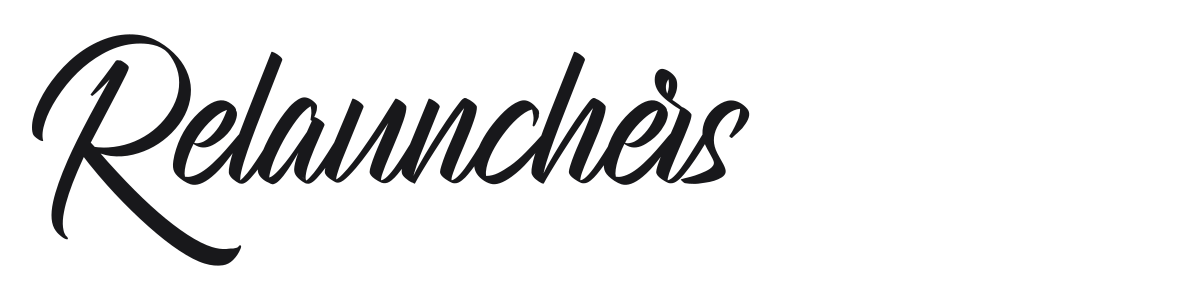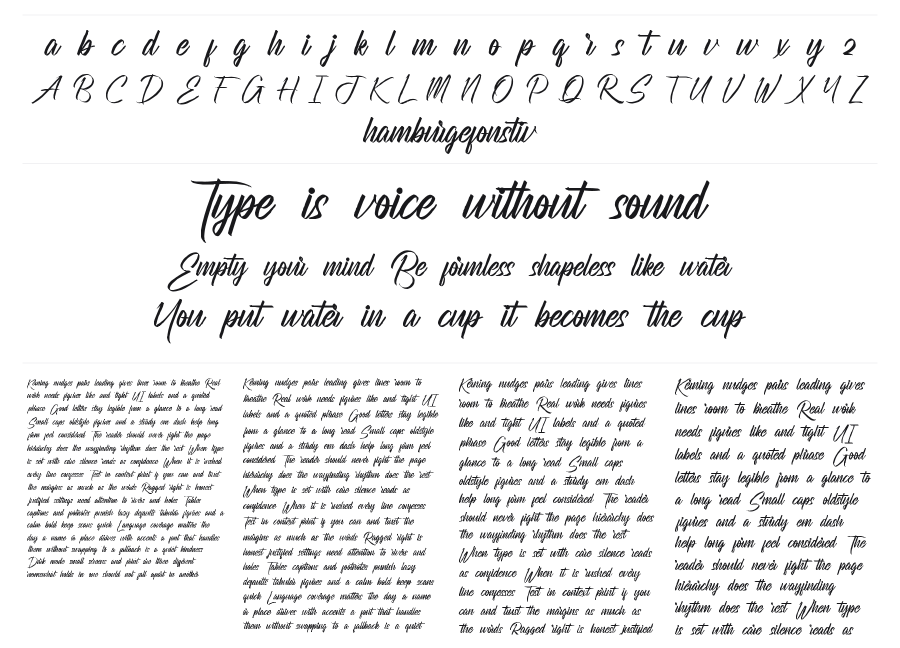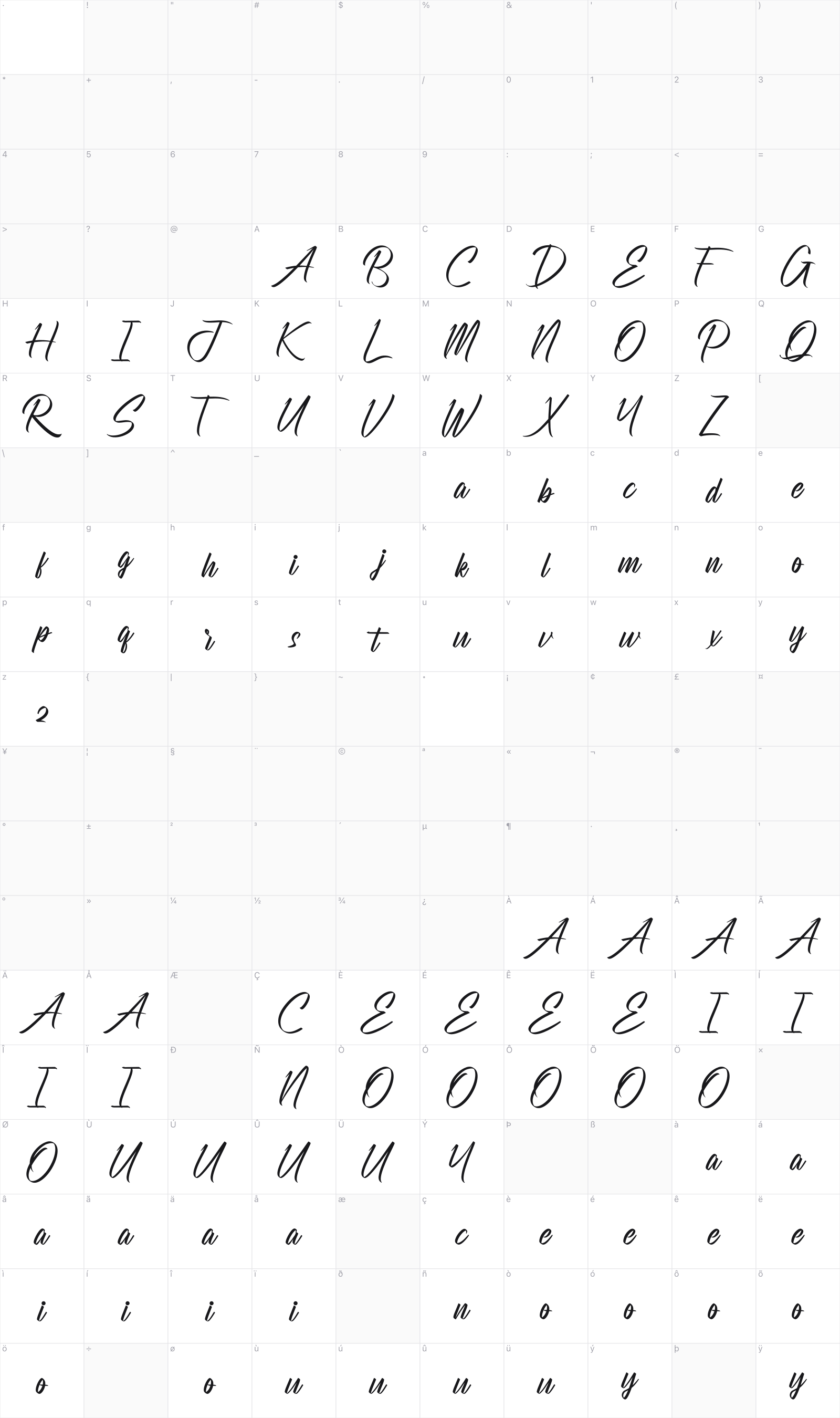
Relaunchers
Relaunchers is a bold brush script with the raw energy of hand-lettered signage and the fluidity of wet-brush calligraphy. Thick downstrokes contrast sharply with hairline upstrokes, and the letters connect in sweeping loops that give text an animated, kinetic quality. It thrives at large sizes where the stroke detail and overlapping connections can breathe.